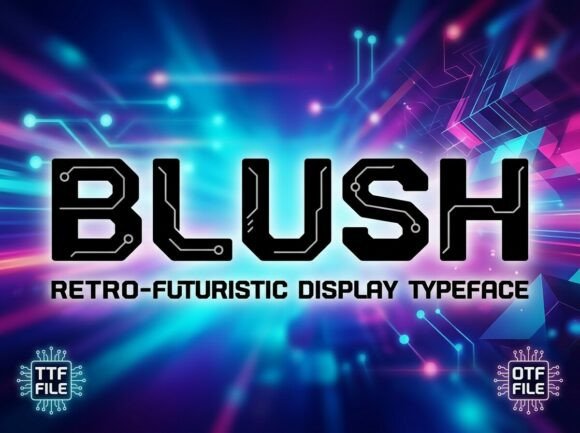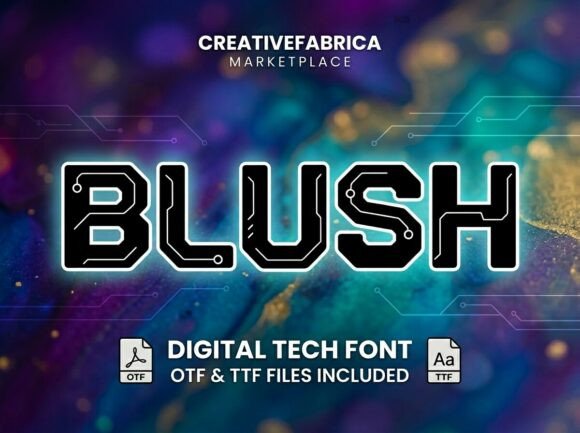
Introducing Blush Font: The Ultimate Decorative Display Font for Creative Minds
Are you tired of using the same old fonts for your designs? Do you want to add a touch of uniqueness and personality to your creative projects? Look no further than Blush Font, a stunning decorative display font that’s designed to be the center of attention. With its artistic elements and strong visual personality, this font is perfect for creators who want to break away from the ordinary and make a statement.
What Makes Blush Font Special?
Blush Font is a versatile decorative display font that’s specifically designed for high-impact headlines, logos, and decorative initials. Its unique artistic elements and strong visual personality make it perfect for a variety of creative projects, from bold headlines and artistic logos to creative packaging and more. Whether you’re a designer, crafty DIY enthusiast, or simply someone who loves to create, Blush Font is the perfect addition to your font collection.
Key Features of Blush Font
- Unique Artistic Elements: Blush Font features unique artistic elements that set it apart from other fonts. Each letter is carefully crafted to make a statement and add a touch of personality to your designs.
- Strong Visual Personality: This font has a strong visual personality that’s perfect for creators who want to make a statement. Whether you’re designing a logo, headline, or packaging, Blush Font is sure to grab attention.
- Versatile: Blush Font is versatile enough for a variety of creative projects, from bold headlines and artistic logos to creative packaging and more.
- Professional and Polished Finish: Despite its decorative nature, Blush Font maintains a professional and polished finish that’s perfect for high-end designs.
IMPORTANT NOTE BEFORE PURCHASE: Blush Font is an ALL-CAPS (Uppercase Only) display typeface. It does not include lowercase letters. It is specifically designed for high-impact headlines, logos, and decorative initials where every letter is a work of art.
Why Choose Blush Font?
There are many reasons why Blush Font is the perfect choice for creative minds. Here are just a few:
- Add a Touch of Uniqueness: With Blush Font, you can add a touch of uniqueness and personality to your designs.
- Stand Out from the Crowd: This font is designed to grab attention and make a statement. Whether you’re designing a logo, headline, or packaging, Blush Font is sure to stand out from the crowd.
- Perfect for Creative Projects: Blush Font is perfect for a variety of creative projects, from bold headlines and artistic logos to creative packaging and more.
How to Use Blush Font
Blush Font is easy to use and can be incorporated into a variety of creative projects. Here are a few ideas to get you started:
- Logos: Use Blush Font to create a unique and eye-catching logo for your business or brand.
- Headlines: Add a touch of personality to your headlines with Blush Font.
- Packaging: Use Blush Font to create eye-catching packaging that stands out on store shelves.
- Social Media Graphics: Add a touch of uniqueness to your social media graphics with Blush Font.
Blush Font is a stunning decorative display font that’s perfect for creative minds who want to add a touch of uniqueness and personality to their designs. With its artistic elements and strong visual personality, this font is sure to grab attention and make a statement. Whether you’re a designer, crafty DIY enthusiast, or simply someone who loves to create, Blush Font is the perfect addition to your font collection.